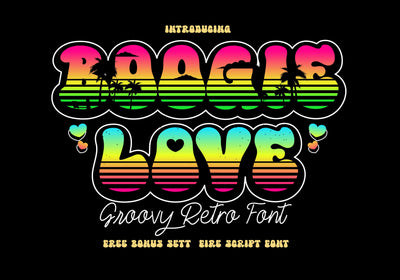
Boogie Love
Boogie Love is a cool, funky display font. Inspired by the retro typography of the 70s and 80s, anything written in this font is instantly recognizable and will grab attention. Use this display font to add a special retro touch to any design idea you can think of. Boogie Love is PUA encoded which means you can access all the glyphs and ligatures with ease!